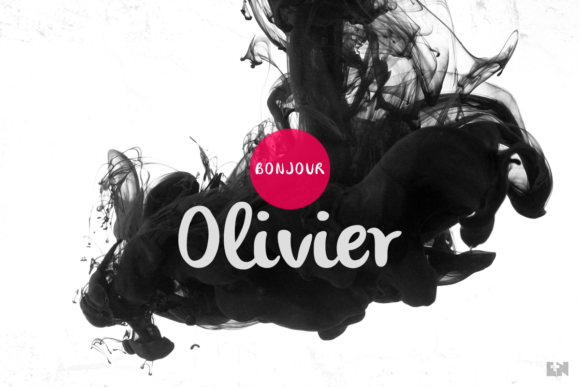
**Meet Olivier Font: Your Gateway to Parisian Chic and Timeless Elegance**
Introducing Olivier Font, the exquisite script font family that embodies the essence of French sophistication. Crafted with meticulous attention to detail by the renowned designer Ursula Hitz, Olivier transports you to the charming streets of Paris, where timeless elegance meets contemporary flair.
With its graceful curves, delicate flourishes, and undeniable Parisian charm, Olivier Font adds an air of refinement to your every creation. Whether you're crafting elegant invitations, enchanting social media posts, or captivating marketing materials, Olivier's mesmerizing allure will captivate your audience.
**Unleash Your Inner Parisian with Olivier Font**
Embrace the allure of Parisian style with Olivier Font. Its enchanting characters evoke the romantic cobblestone streets, quaint cafes, and literary brilliance that define the French capital. Let Olivier inspire you to create enchanting designs that radiate sophistication and timeless elegance.
**Why Choose Olivier Font?**
* **Contemporary Authenticity:** Olivier Font seamlessly blends the allure of traditional calligraphy with a modern, minimalist aesthetic, creating a captivating typography that sets your designs apart.
* **Effortless Elegance:** With its effortless grace and delicate flourishes, Olivier Font adds an instant touch of sophistication to your projects, elevating them to the realm of timeless beauty.
* **Unleash Your Creativity:** Olivier Font's versatility empowers you to explore endless creative possibilities. Its elegant curves lend themselves perfectly to romantic wedding invitations, while its contemporary flair adds a touch of modernity to social media graphics.
**Experience the Enchantment of Olivier Font Today**
Join the countless creatives who have fallen in love with Olivier Font's irresistible charm. Its captivating beauty will add a touch of Parisian chic to your every design, inspiring you to create masterpieces that will leave a lasting impression.